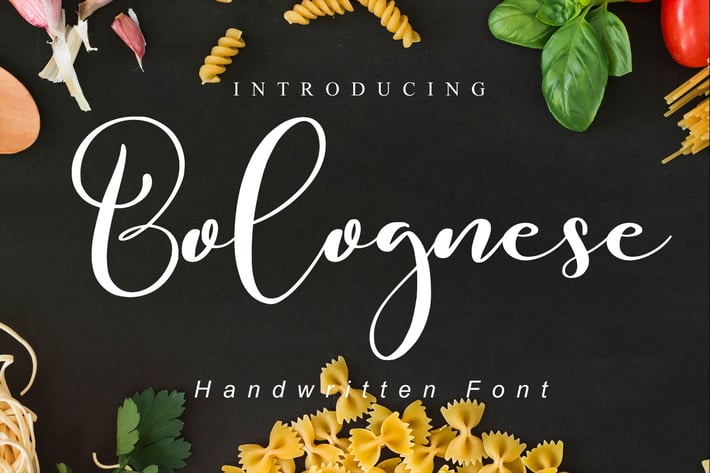
Bolognese // Tasty Script Font
Bolognese is a smooth and elegant handwritten font. This font has a lovely touch of character, perfect for a wide variety of designs. Add to your most creative ideas and create stunning designs!
It has beautiful and well-balanced characters and as a result, it matches a wide pool of designs. Driana Brideth features a varying baseline, smooth lines, gorgeous glyphs, and stunning alternates. Add it to your most creative ideas and notice how it makes them come alive!
Each Font Has:
Stylish modern handwritten script
Beautiful Swash (Ending tail)
Beautiful Titling (Beginning tail)
Special Ligatures
* Multilingual Support